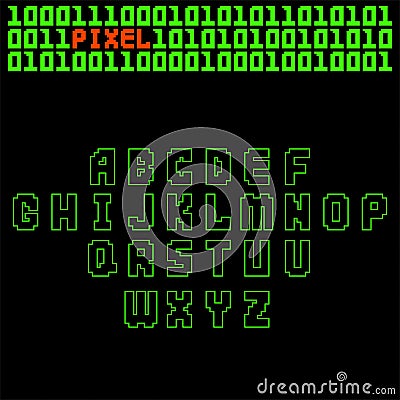
Pixel retro font video computer game design 8 bit letters. Electronic futuristic style and vector abc typeface digital creative alphabet. Website modern vintage creative graphic.